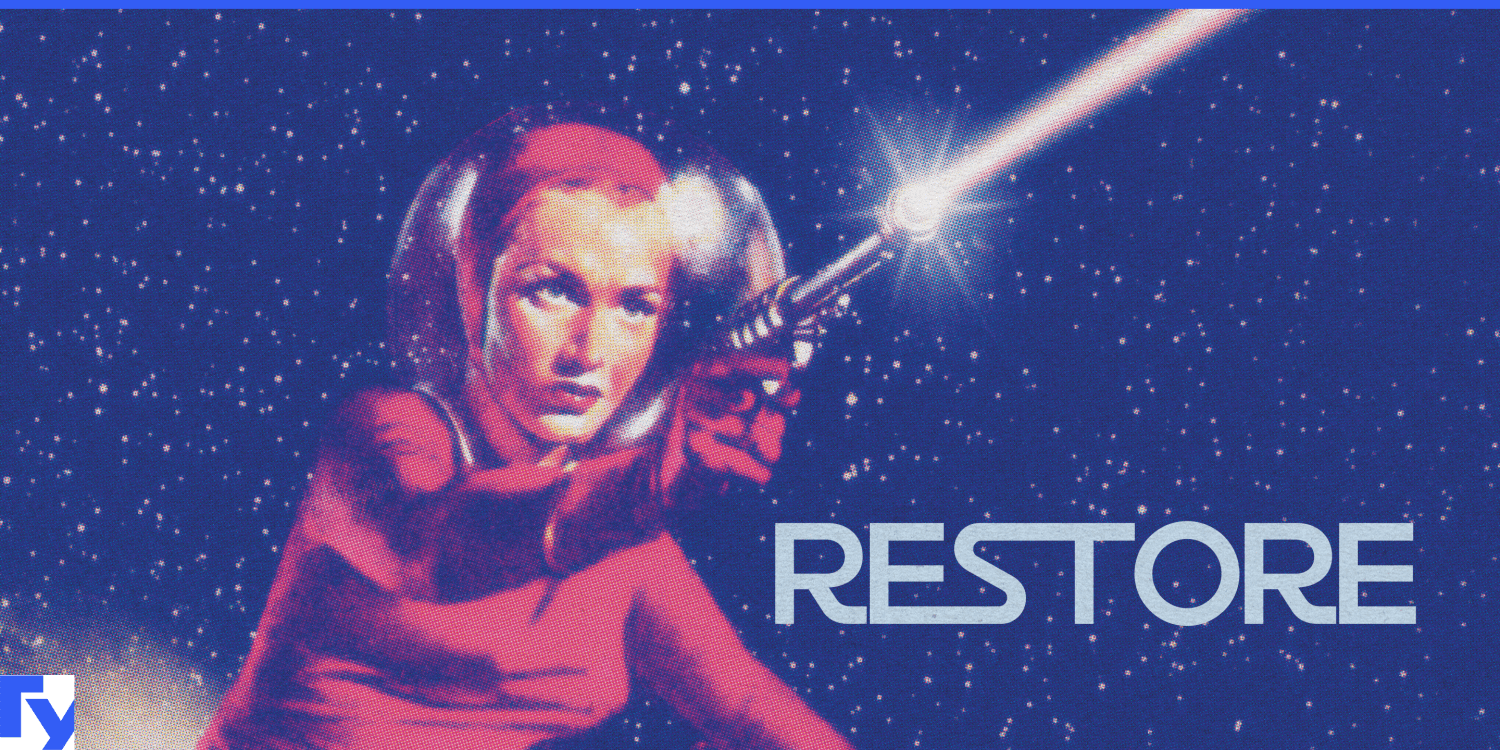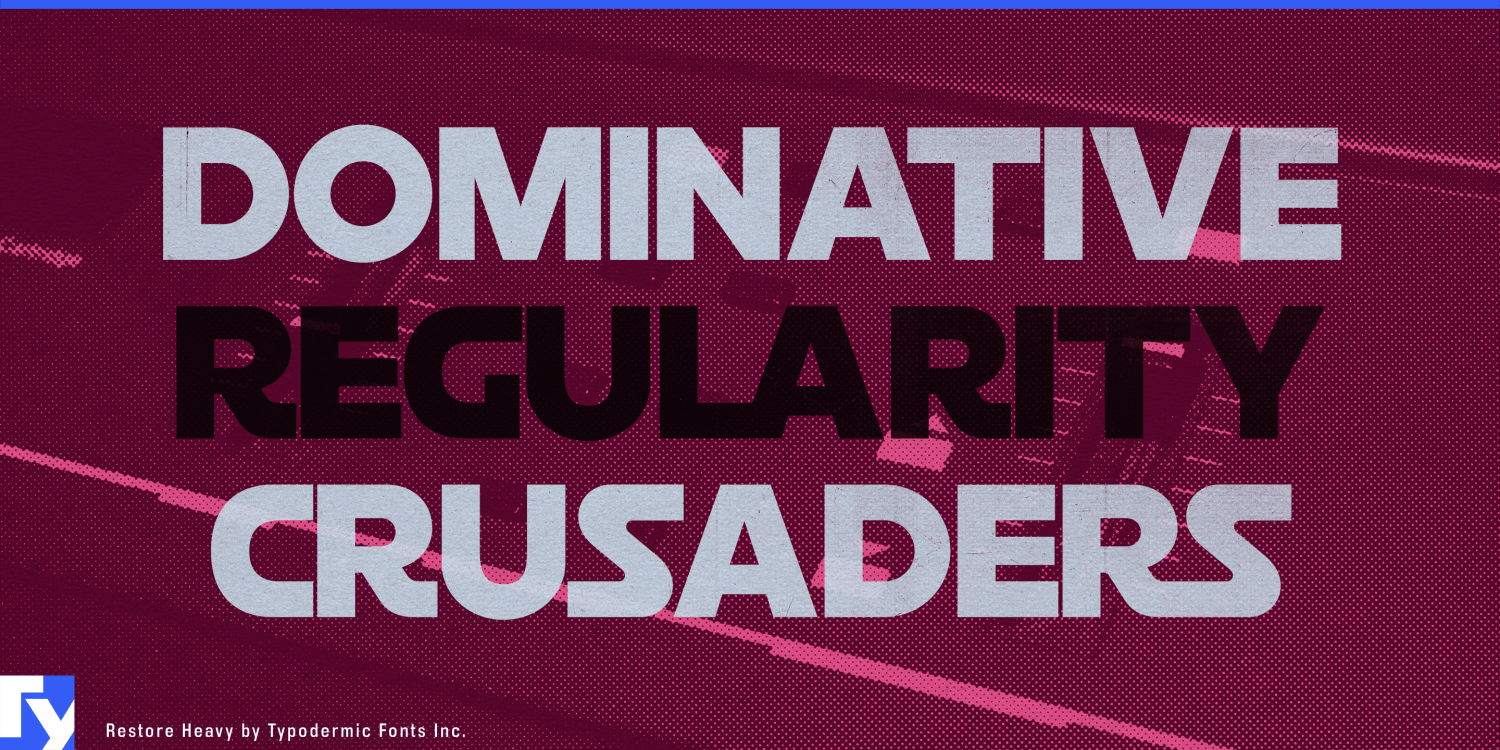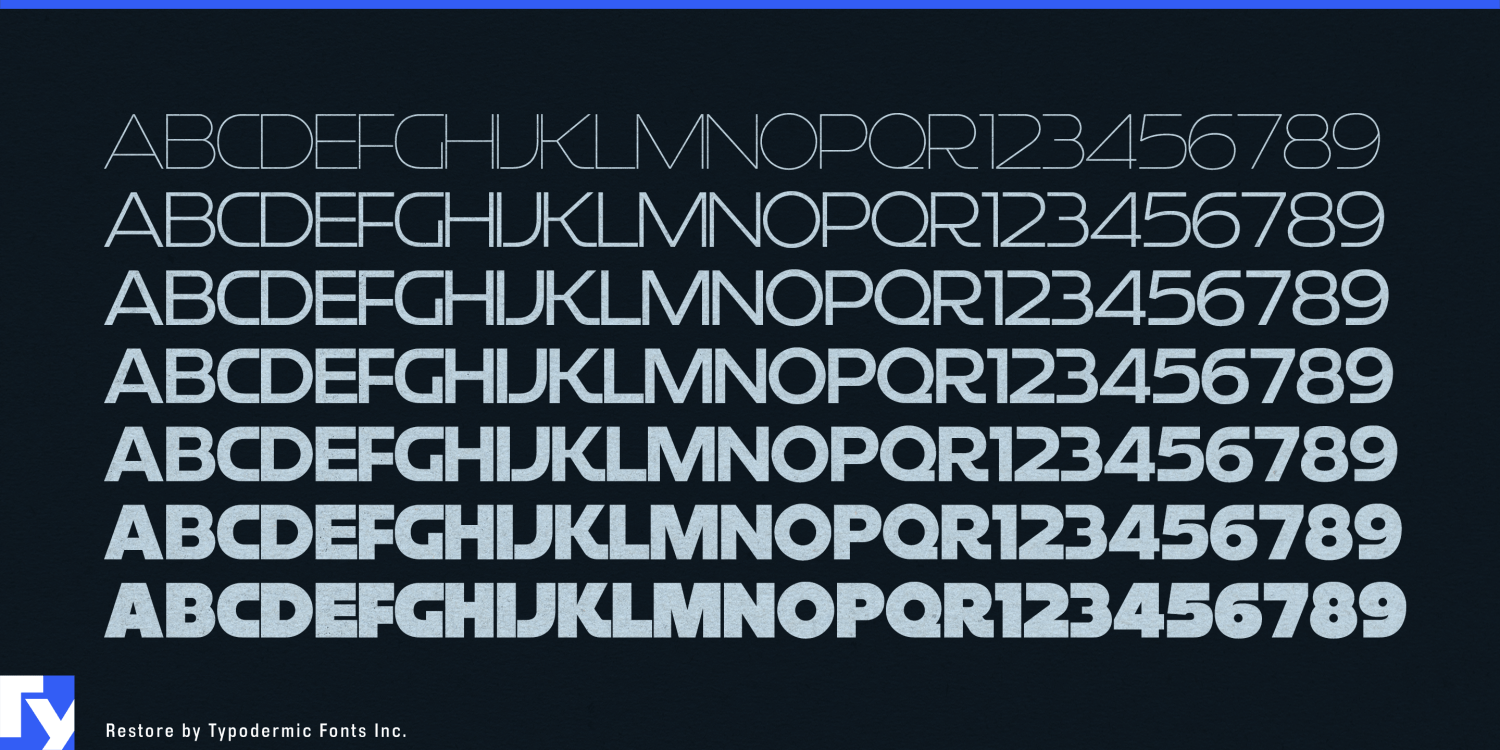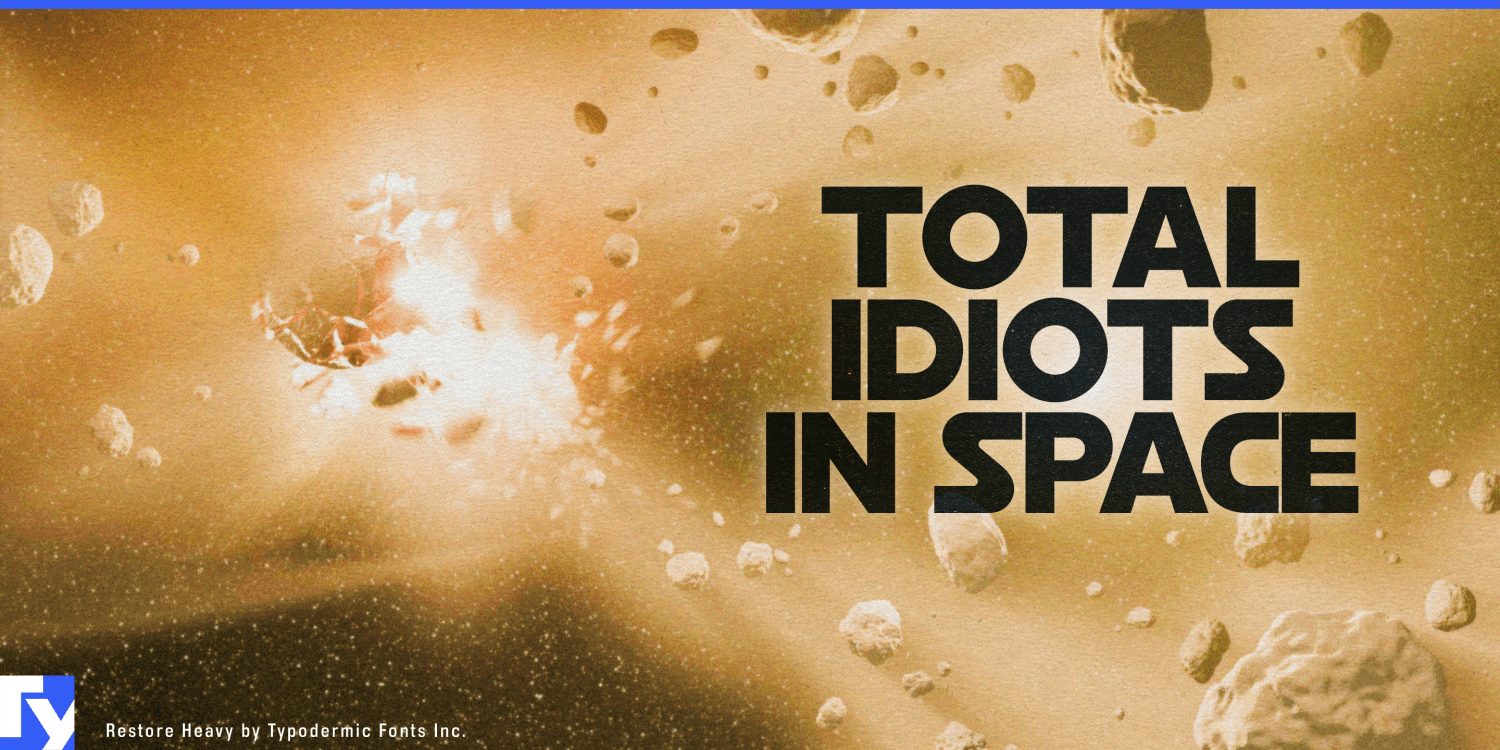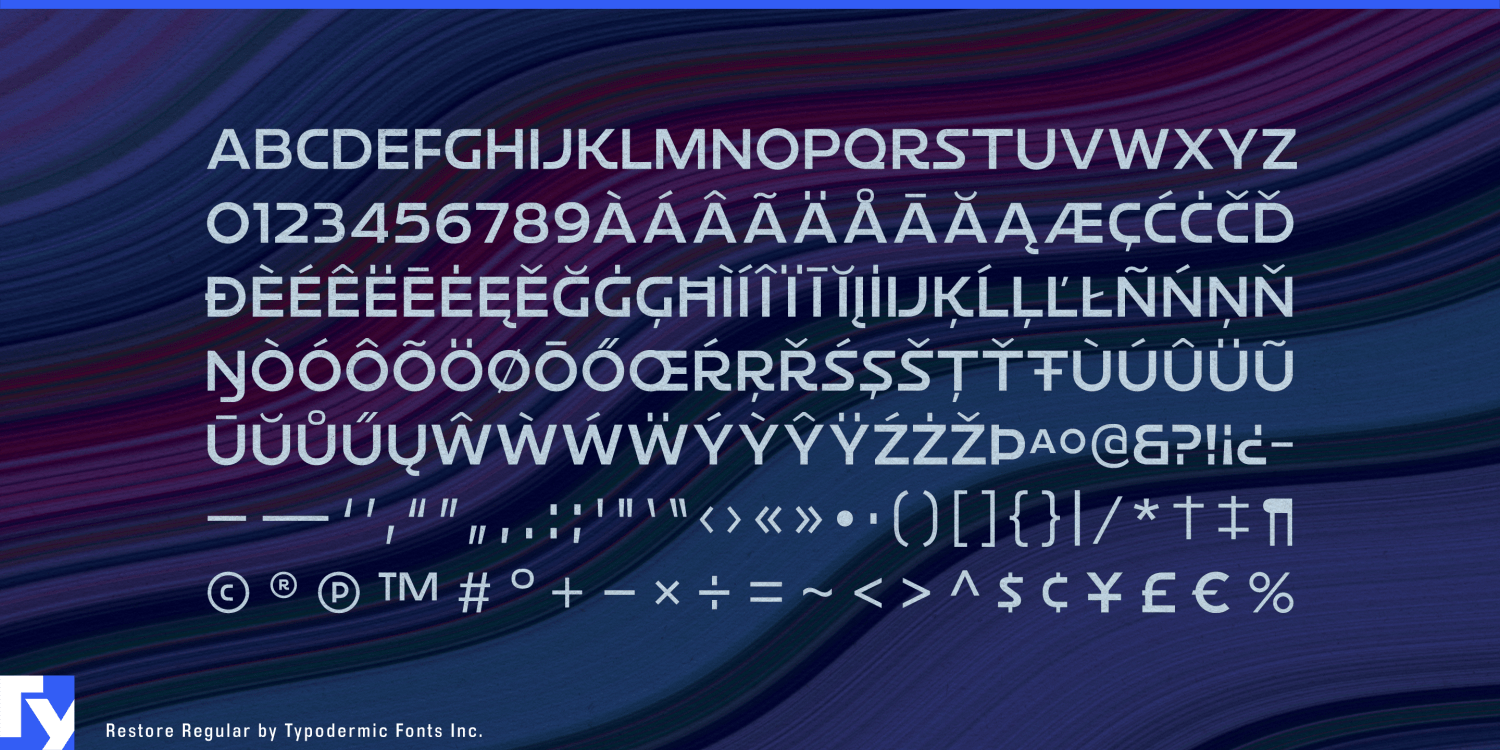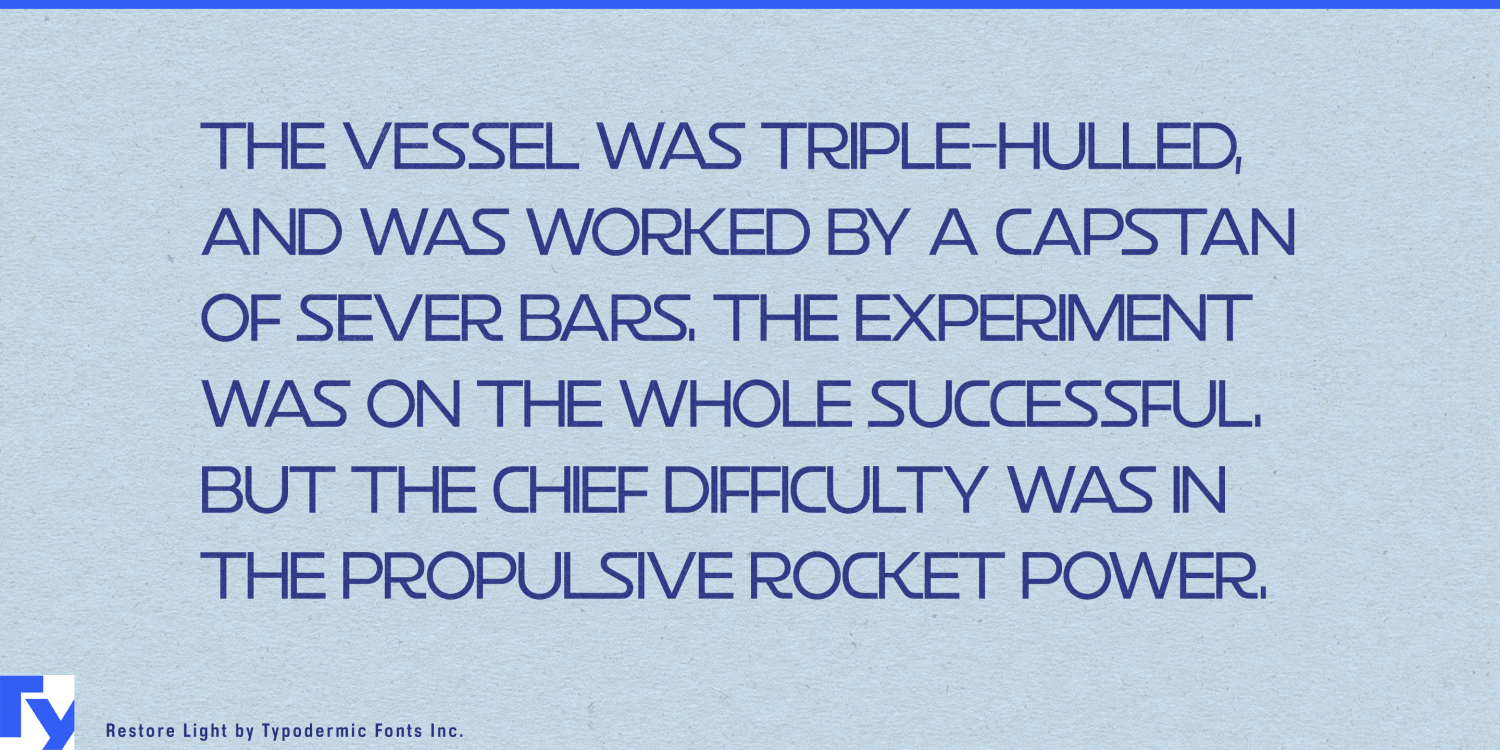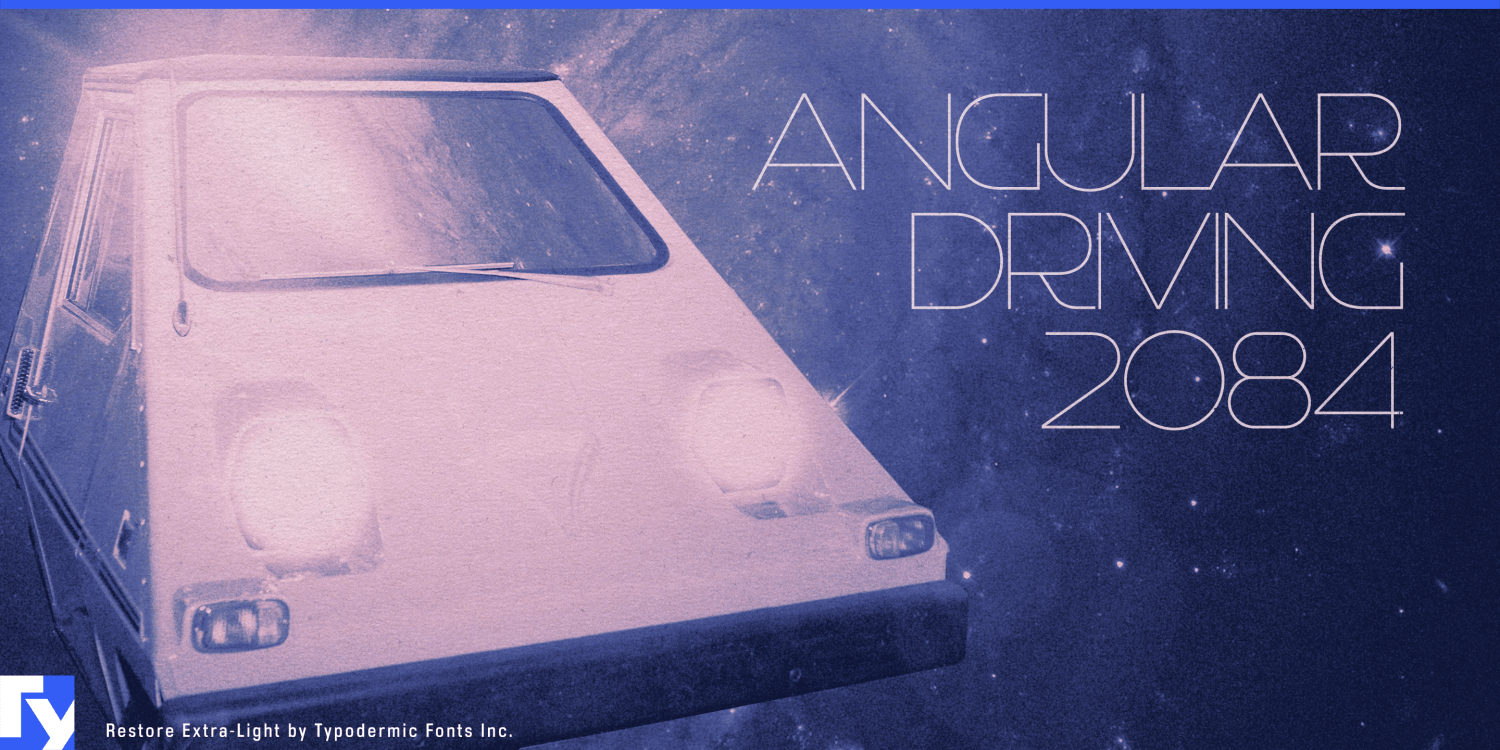
Restore
Font Family by Typodermic
Restore is a geometric sports display family built around long straights, broad curves, and tightly fitted forms that can make a word feel almost like a continuous track. In heavier styles those paths become substantial enough for equipment graphics; lighter styles reduce the same construction to lean technical lettering. The result belongs more naturally to the engineered side of sport than to traditional varsity or team typography.
Cycling is especially fertile territory. Road bikes, gravel bikes, mountain bikes, performance e-bikes, helmets, wheelsets, forks, and components all need short model names, technology names, frame graphics, and product-series identities. Restore’s sweeping curves can suggest route and track geometry without turning into road-sign lettering, while its compact construction works well on the narrow surfaces of frames and components.
Racket sports offer another strong setting. Pickleball paddles, padel racquets, tennis equipment, and squash gear increasingly carry prominent model names and technology branding directly on the product. Restore can move from a paddle face or racquet frame to packaging, covers, dealer displays, launch campaigns, and comparison graphics while keeping the equipment line visually related.
Performance footwear gives the geometry a different physical context. Running shoes, trail shoes, cycling shoes, and court footwear are built from molded midsoles, plates, channels, vents, and bonded components, each accompanied by model names and named technologies. Restore can handle heel graphics, tongue labels, outsole markings, shoebox titles, technology marks, and retail displays without drifting into generic sportswear lettering.
Winter equipment provides larger surfaces for the same approach. Skis, snowboards, bindings, boots, helmets, and goggles can carry Restore as part of the product itself, while fitness hardware extends the idea into treadmills, rowing machines, stationary bikes, strength equipment, connected training stations, and recovery devices.
Restore is at its most distinctive when the typography starts on the physical object: a paddle, bicycle, shoe, ski, helmet, or training machine, then continues into the graphics surrounding it. Its continuous curves, compressed joins, and dramatic shift from fine to heavy forms suit products built around speed, movement, materials, and performance technology.